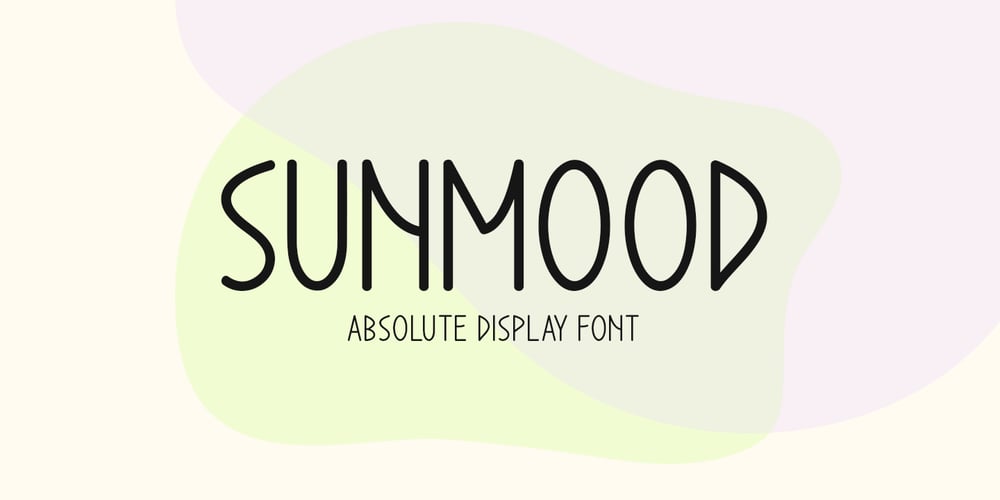
Sunmood Font Family was designed by Md Shohail Bhuian and published by Seemly Fonts. Sunmood contains 1 styles and family package options. A distinctive display font is called Sunmood. This font looks great on stationary, logos, t-shirts, papers, print designs, website headers, picture frames, flyers, album covers, posters, and image sliders, among other things.